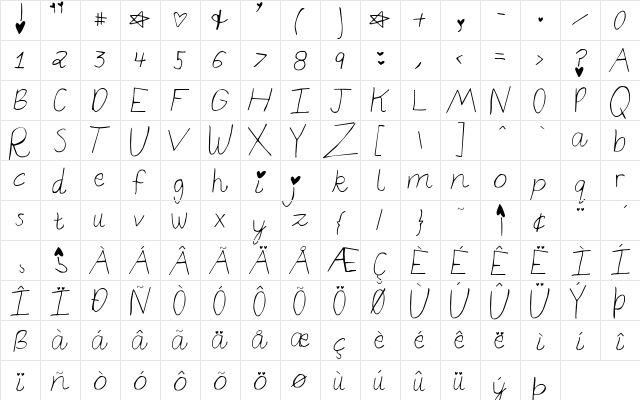
elizajane Regular
| Foundry | Kimberly Geswein |
| Designer | Kimberly Geswein |
Design Context for elizajane Typeface
elizajane is a composed and adaptable typeface that performs quietly and consistently across a wide range of design contexts.